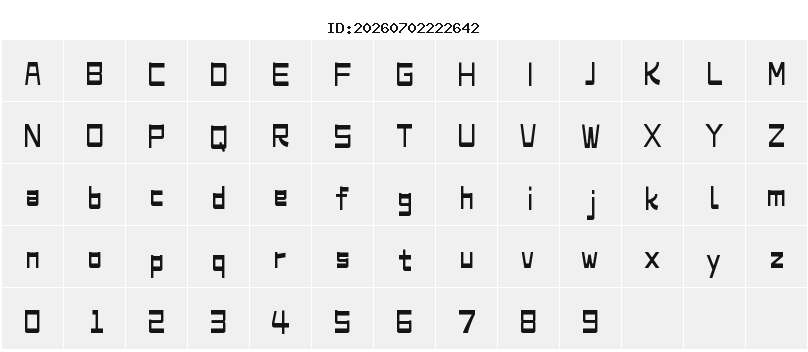
246-上首本墨体 Preview
• Font Name: 246-上首本墨体
• Font ID: 246-SSBenMoTi:Version 6.00
• Full Font Name: 246-上首本墨体
• Version: Version 6.00 July 5, 2023
• PostScript Name: 246-SSBenMoTi
• Character Count: 7569
• Manufacturer: 上首造字
About 246-上首本墨体.ttf
246-上首本墨体.ttf is a modern, elegant sans-serif font designed for ultimate readability and visual harmony. Perfect for branding, headlines, web design, and print materials.